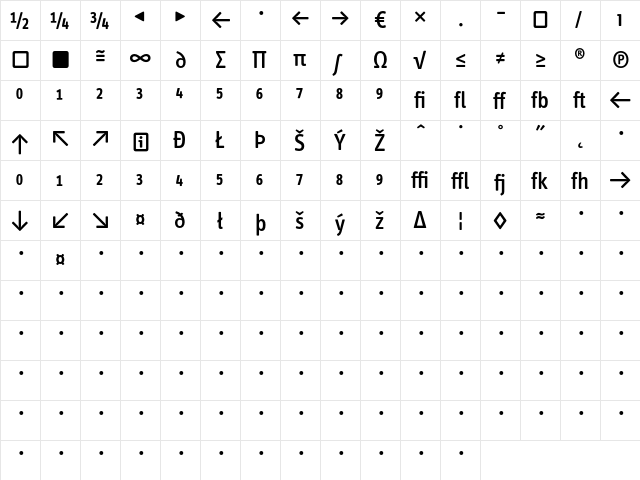
InfoDispMedium RomanExp Font Preview
InfoDispMedium RomanExp
InfoDispMedium RomanExp Font Details
Design Context for InfoDispMedium Typeface
InfoDispMedium offers clean, dependable letterforms without strong stylistic allegiance, making it a practical choice for designers who need flexibility.